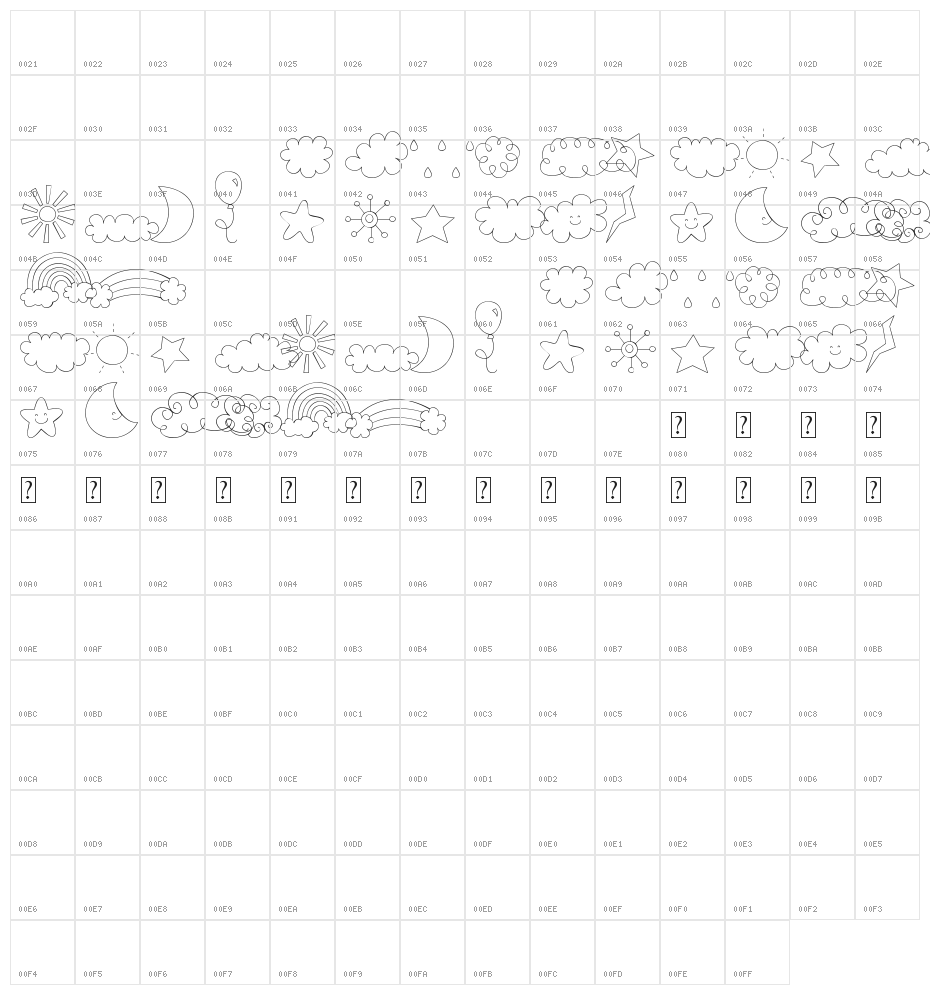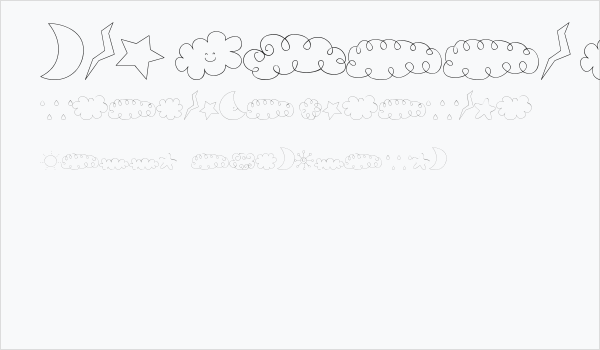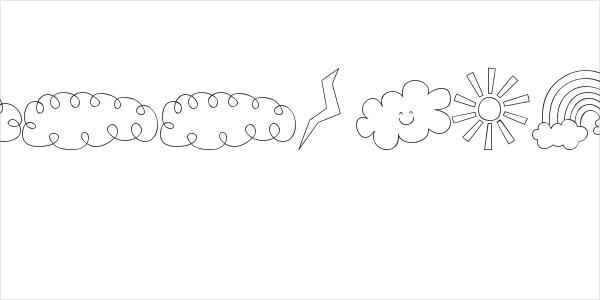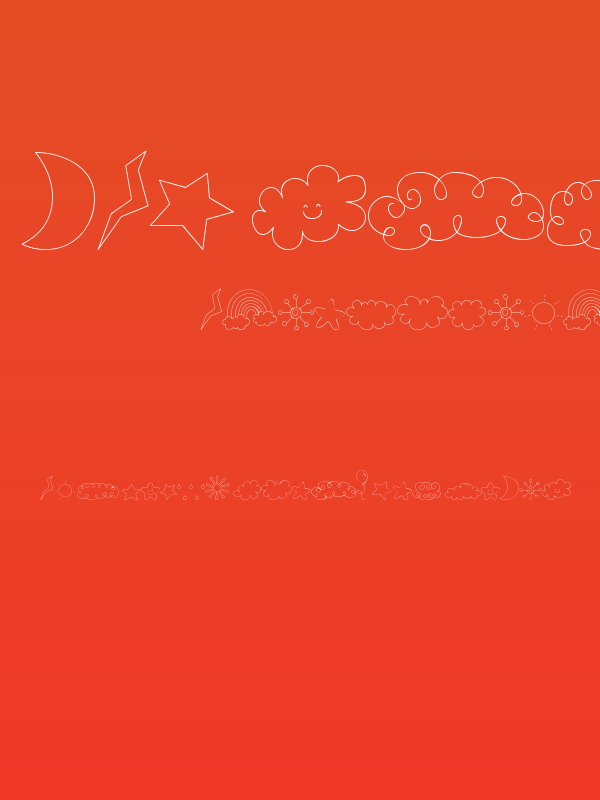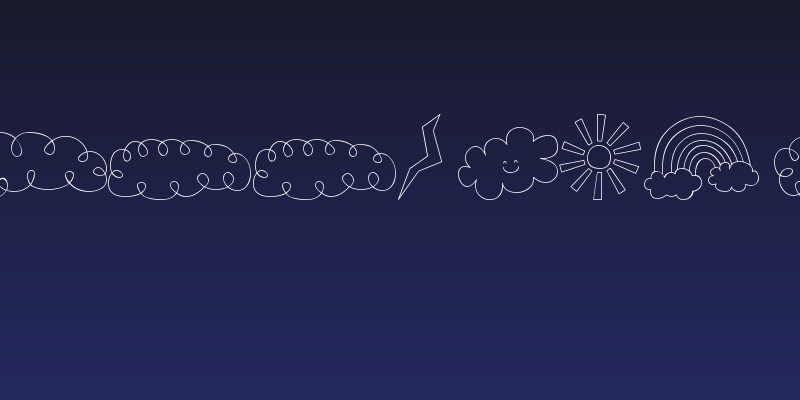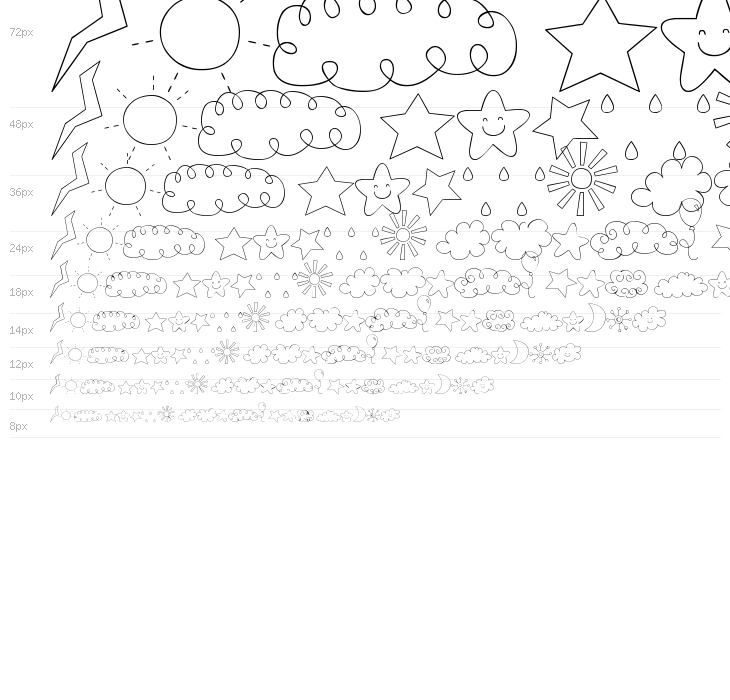
MTF Sweet Sky Dings Font
MTF Sweet Sky Dings Description
This decorative font features whimsical sky-themed dingbats, including clouds, stars, suns, moons, and rainbows. Each character is intricately designed with a playful and airy aesthetic, making it ideal for projects that require a touch of creativity and imagination. The elements are outlined with a consistent stroke width, giving a cohesive look across the set. The style is light-hearted and perfect for adding a fun, dreamy element to designs. The characters are well-spaced, ensuring clarity and readability despite their decorative nature.
Proposed ProjectsIdeal for children's book illustrations, greeting cards, party invitations, and decorative posters.